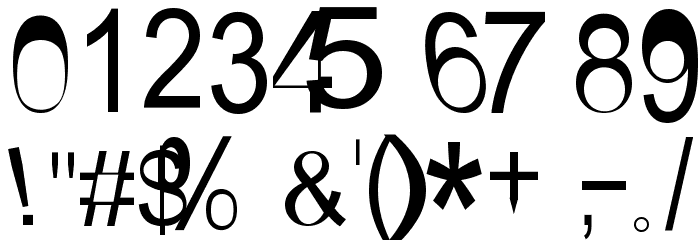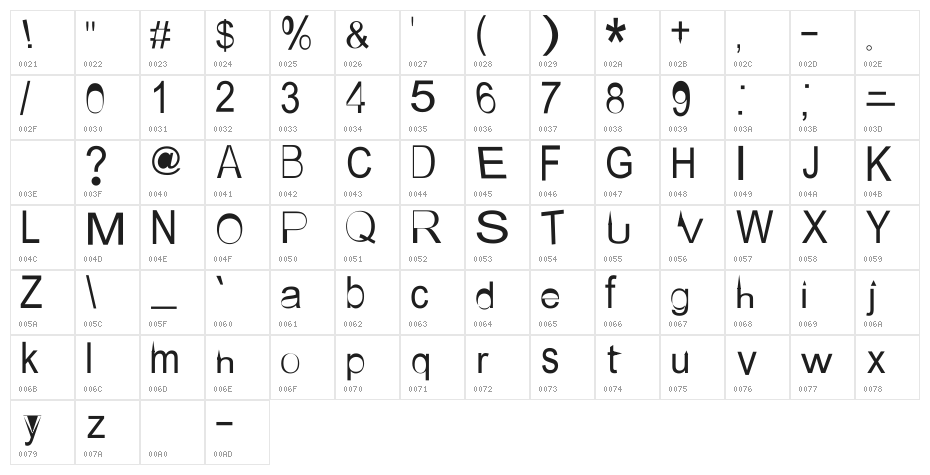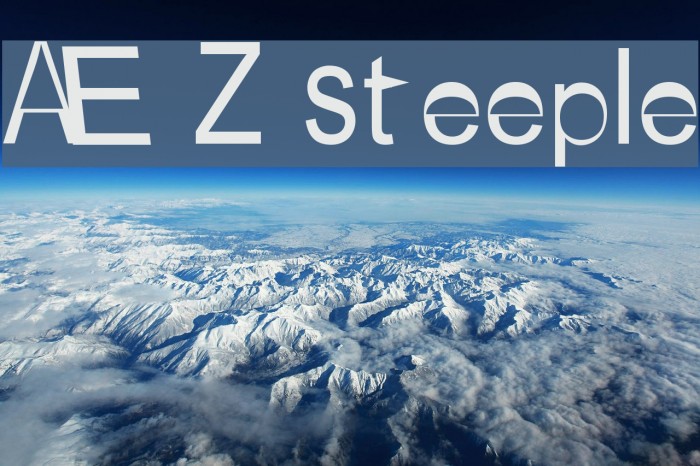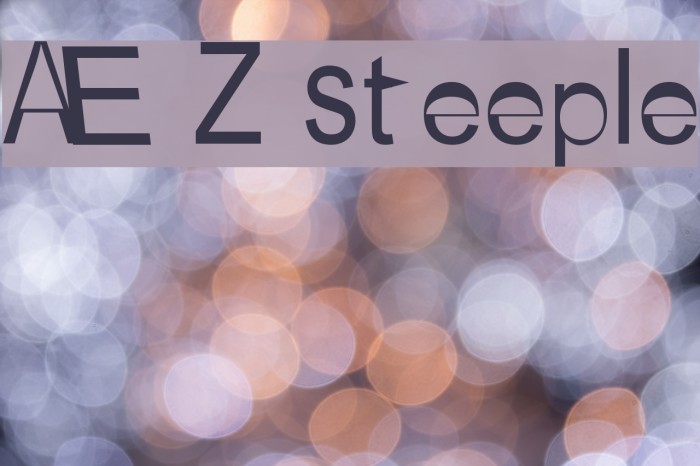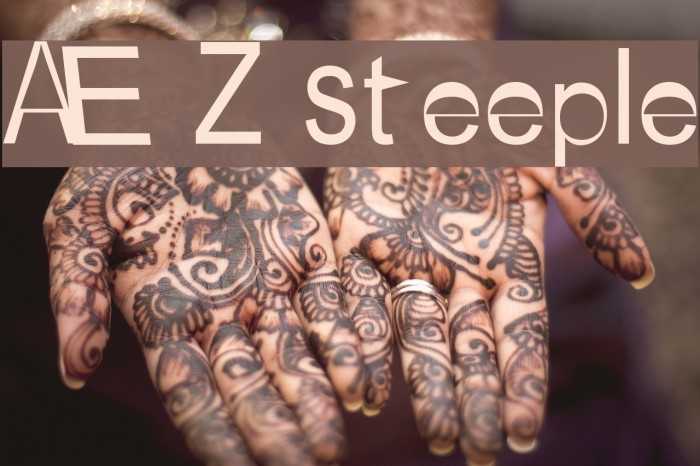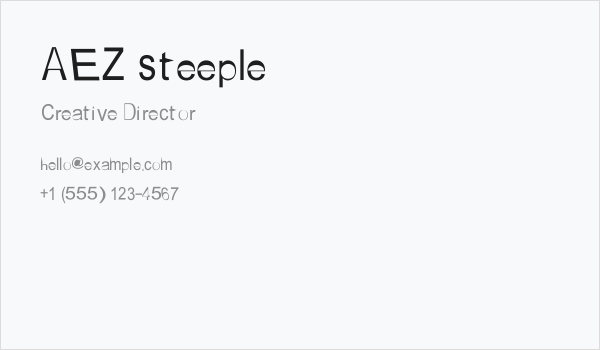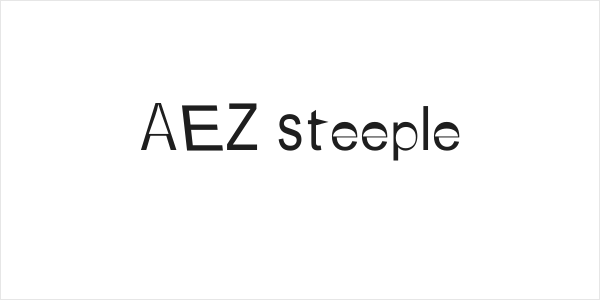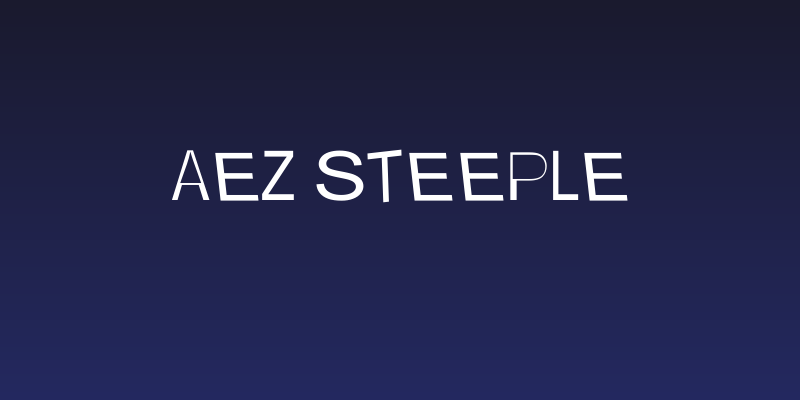
AEZ steeple Font
AEZ steeple Description
This font features a unique and modern design with a playful twist. The uppercase letters are bold and striking, with some characters like 'E' and 'L' having distinctive geometric cuts. The lowercase letters maintain a consistent style, with certain letters such as 'g' and 'j' incorporating elongated descenders that add a dynamic flair. The numerals are bold and easily readable, with a slightly condensed appearance that complements the overall design. Special characters are creatively styled, maintaining the font's modern aesthetic. The font's high contrast in stroke thickness enhances its legibility and visual impact.